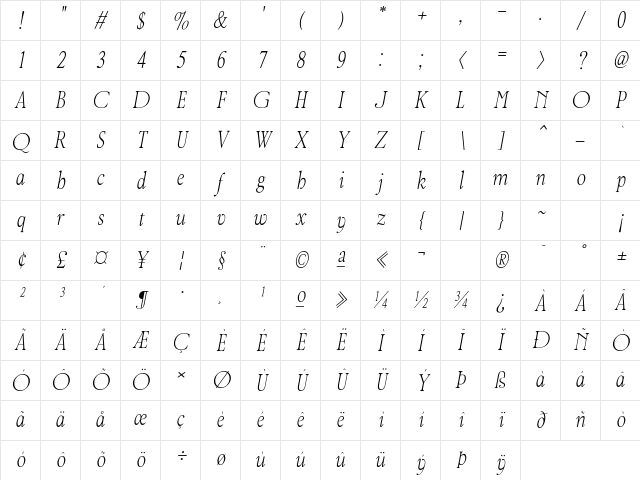
Complete ZT Bros Oskon 90s ExtLt Italic glyph index. Displaying only characters natively supported by ZT Bros Oskon 90s ExtLt Italic font.
ZT Bros Oskon 90s ExtLt is a composed and adaptable typeface that performs quietly and consistently across a wide range of design contexts. The slanted form adds forward momentum and visual energy.
Pro Tip: Use ZT Bros Oskon 90s ExtLt for emphasis, pull quotes, and subheadings where its slanted energy can add rhythm to the layout.